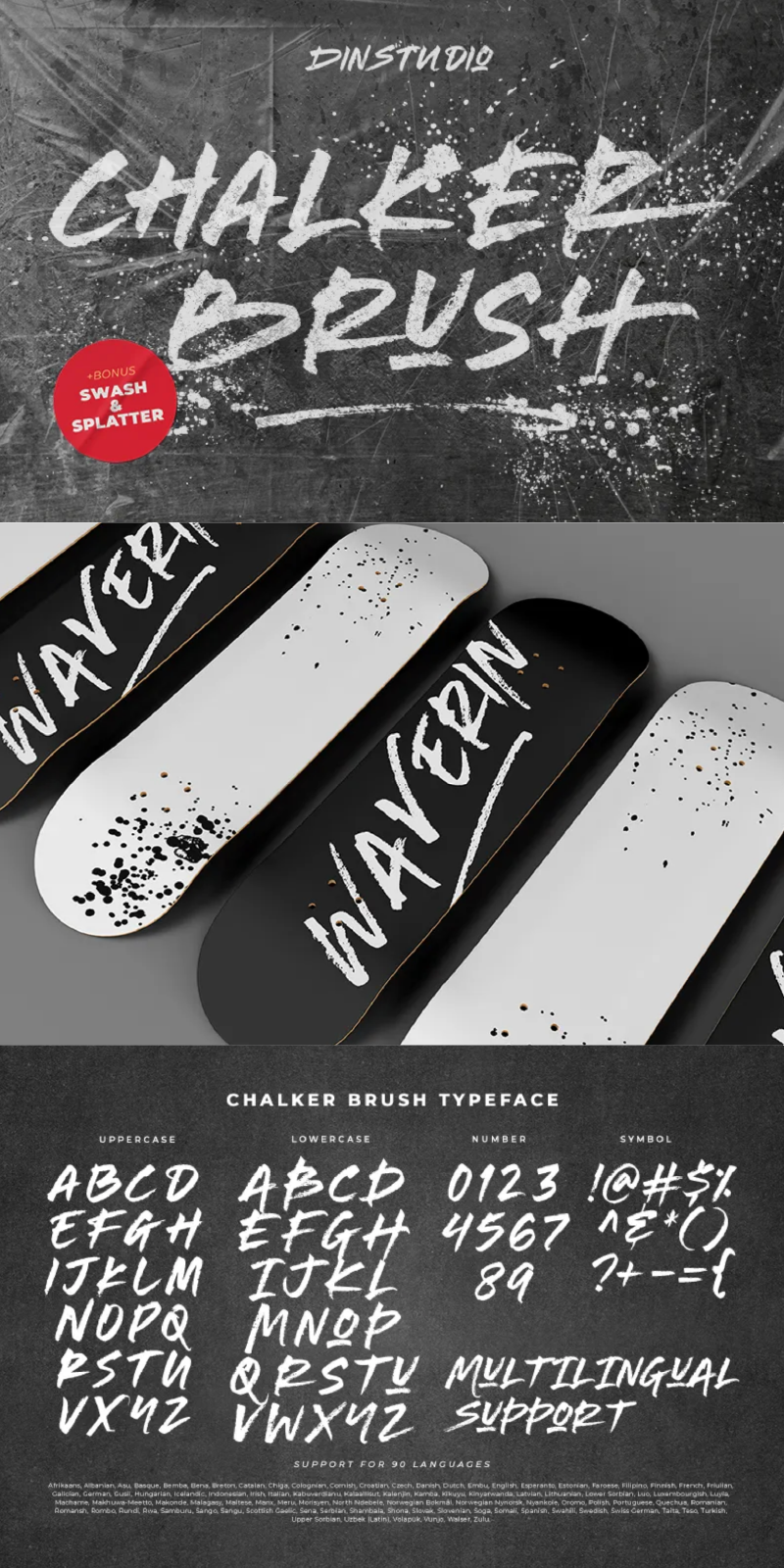
Chalker Brush Font
About Chalker Brush
Chalker Brush is a bold and energetic brush font that brings an urban edge to your designs. Crafted with uppercases, dynamic letters, this typeface maintains consistent proportions for a balanced and cohesive look. To enhance its raw, street-inspired aesthetic, Chalker Brush includes bonus splatters and swashes—perfect for adding a burst of creativity and authenticity. Chalker Brush delivers a distinctive, handcrafted style with contemporary flair. In addition, enjoy the features here.
Chalker Brush fits in headlines, logos, posters, branding materials, packaging, print media, editorial layouts, and many more designs. Find out more ways to use this font by taking a look at the font preview.